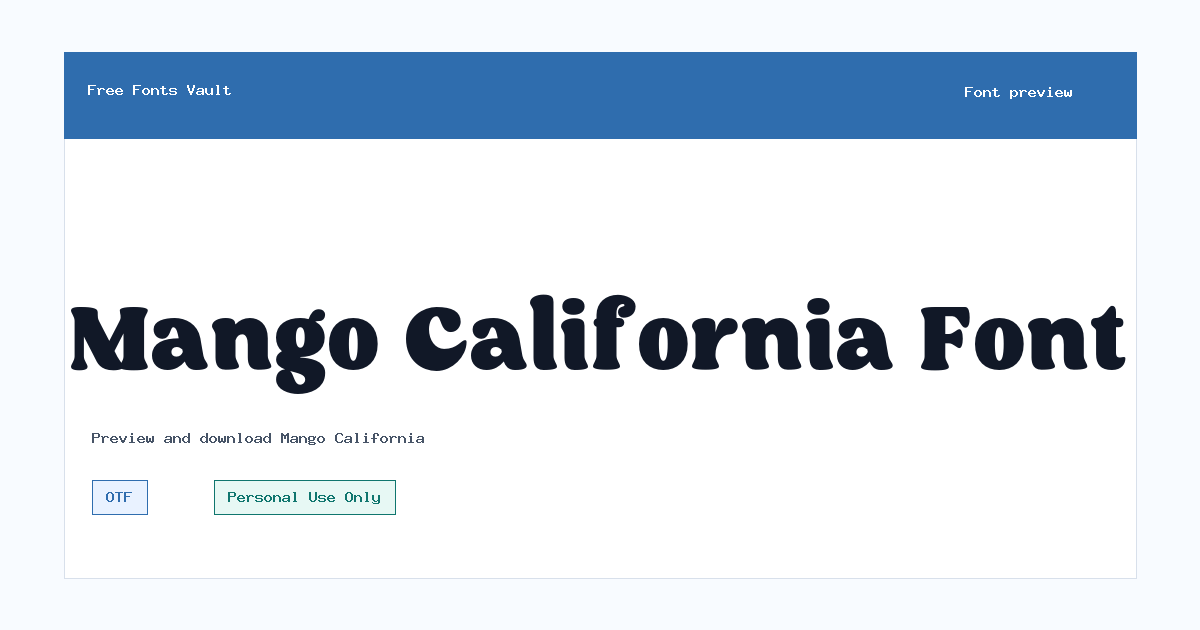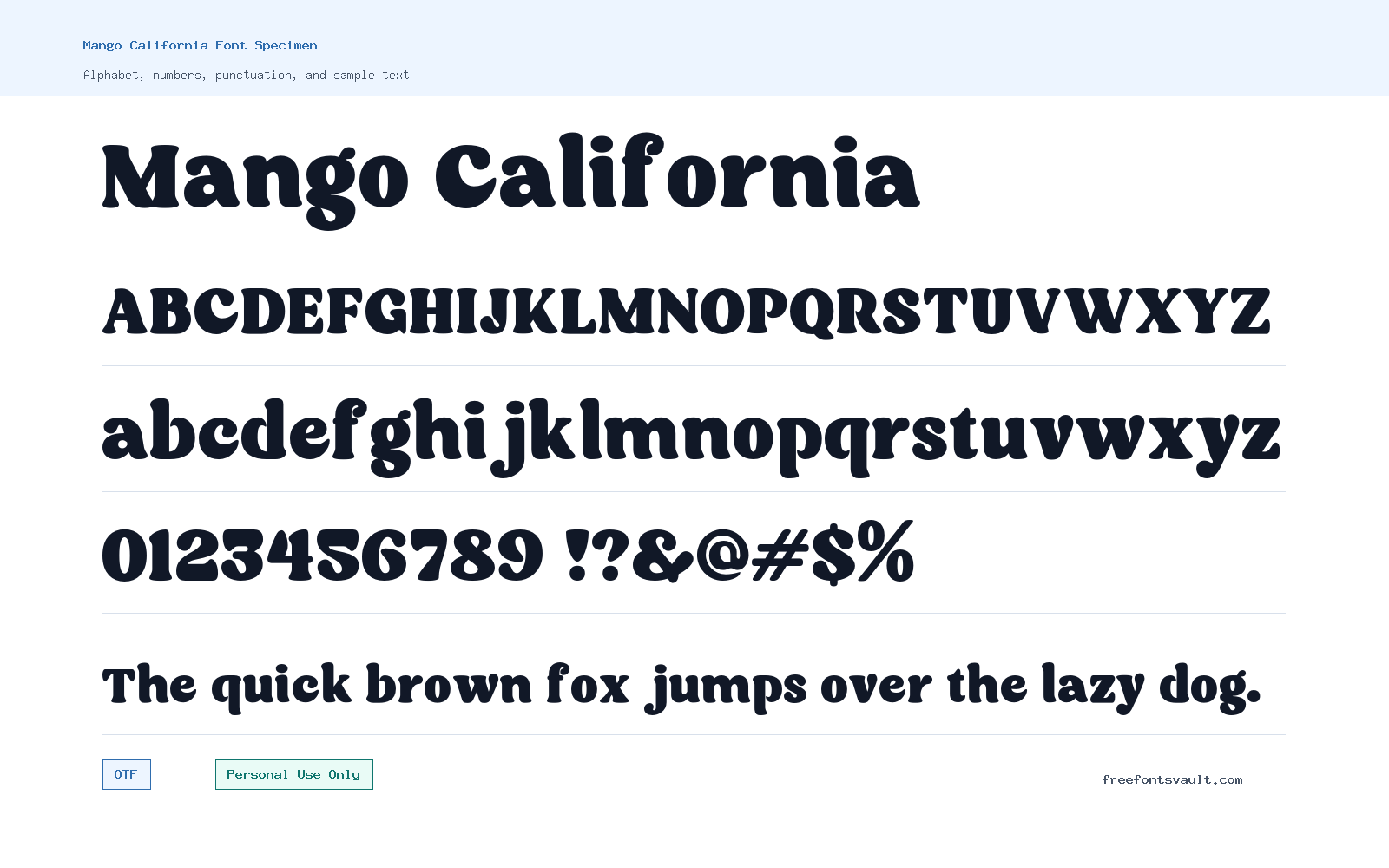
Mango California
• Designer Bakhrudin Ja'far
• Foundry Roomspace Creative Lab
Mango California is a serif display font with a stylish, decorative feel, made for short pieces of text that need more personality than a standard body font.
About Mango California
Mango California works best when you let it take the visual lead. The serif structure gives it a classic base, while the overall impression is more suited to headings, names, quotes, and brand-style text than long reading. Use it where the words are meant to be noticed first: a poster title, a social graphic, a product label mockup, a greeting card headline, or a large website hero line. Because the family entry contains a regular OTF file, it is simple to test in most design apps and many desktop projects after installation.
For the best result, preview Mango California with the exact words you plan to use before downloading or building a layout around it. Decorative serif fonts can change character a lot depending on letter combinations, spacing, and size. Try your title in uppercase, lowercase, and title case, then check whether tight pairs, punctuation, and numbers look balanced. Keep it large enough for the details to breathe, and avoid using it for paragraphs, small captions, or dense navigation labels. Pair it with a clean sans serif or a quiet text serif so Mango California can stay focused on the main display line without making the whole design feel busy.
• Serif display style suited to short, expressive text rather than long body copy
• Poster titles, invitation headings, quote graphics, and social media artwork
• Logo drafts, packaging mockups, boutique branding concepts, and decorative headlines
The font is credited to Bakhrudin Ja'far, with Roomspace Creative Lab listed as the foundry.
What kind of font is Mango California?
Mango California is a serif display font. It is better for titles and decorative text than for long paragraphs.
Where should I use Mango California?
Use it for short, high-impact text such as invitations, posters, quote images, product mockups, and display headings. Keep supporting text in a simpler companion font.
Who designed Mango California?
Mango California is credited to Bakhrudin Ja'far, with Roomspace Creative Lab listed as the foundry.